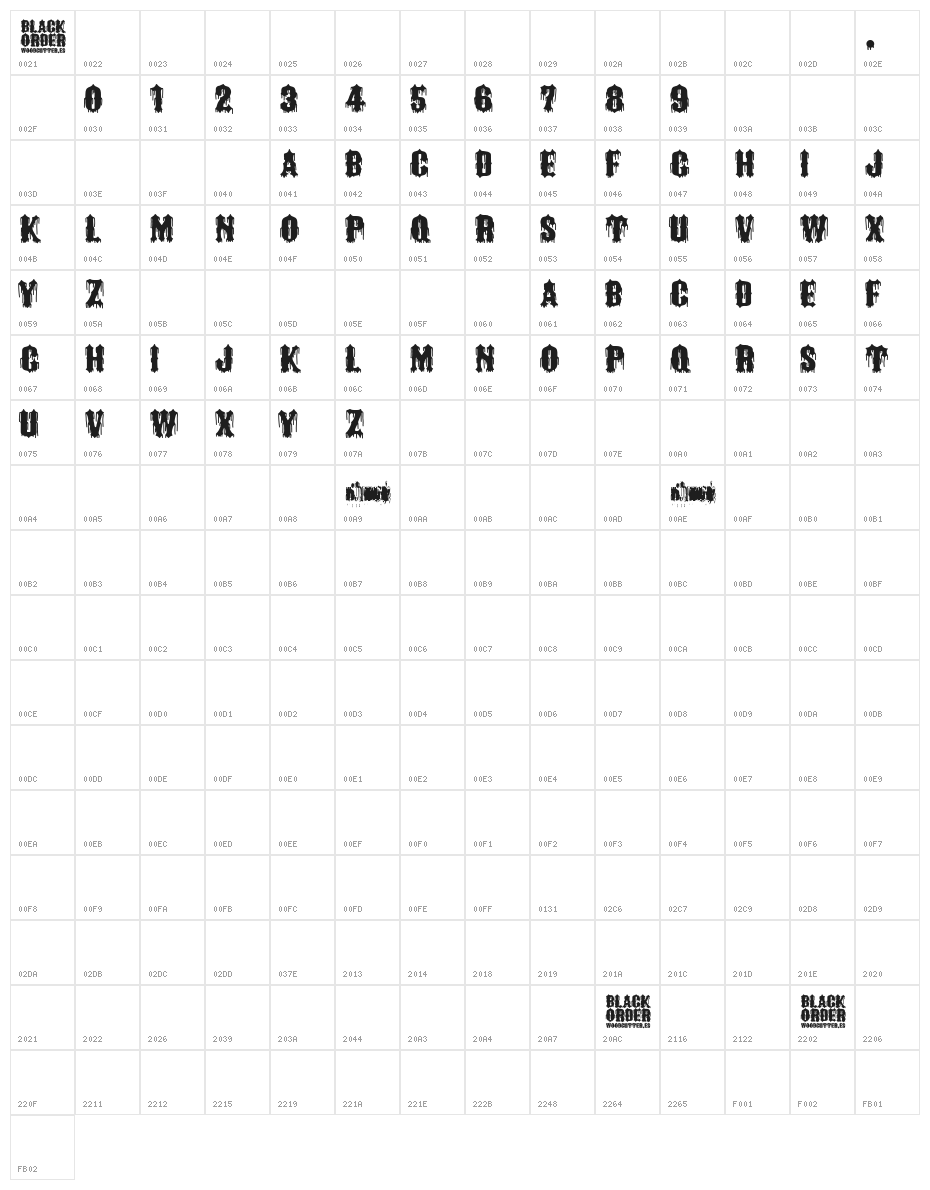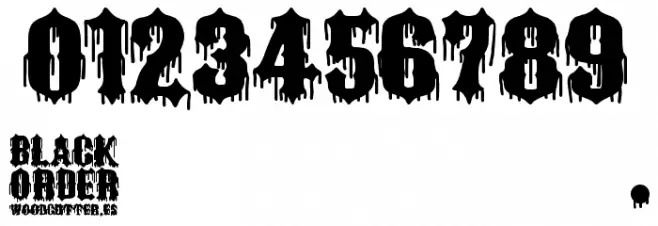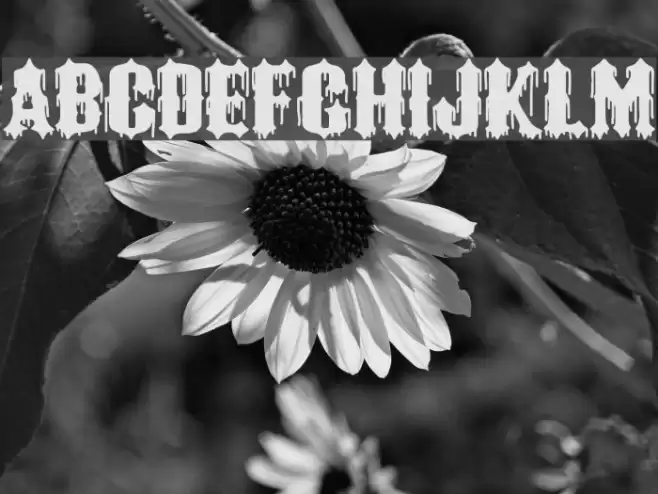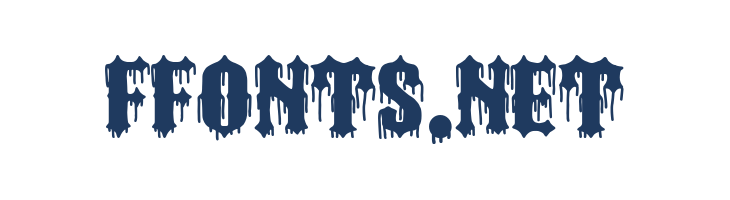
Black Order Font
Black Order Description
This font features a bold and dramatic style with a dripping effect that gives it a unique, eerie appearance. The characters are heavily stylized, with thick strokes and irregular edges that create a sense of movement and fluidity. The uppercase and lowercase letters maintain a consistent design, while the numbers and special characters complement the overall aesthetic. This font is perfect for creating a spooky or mysterious atmosphere, making it ideal for Halloween-themed projects or horror movie posters.
| Use Case | Logos, Posters, Headlines |
| Proposed Projects | Ideal for Halloween invitations, horror movie posters, themed event flyers, and spooky merchandise designs. |